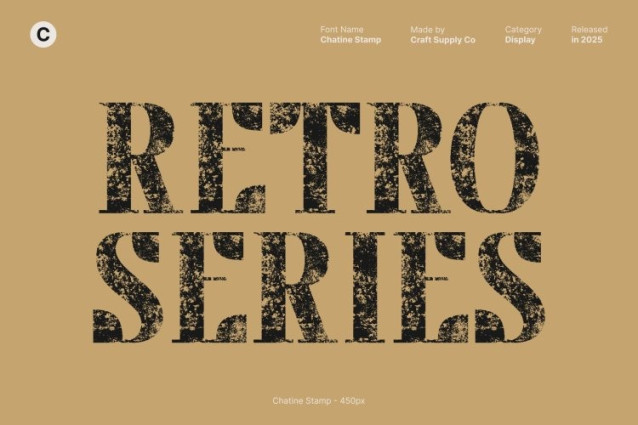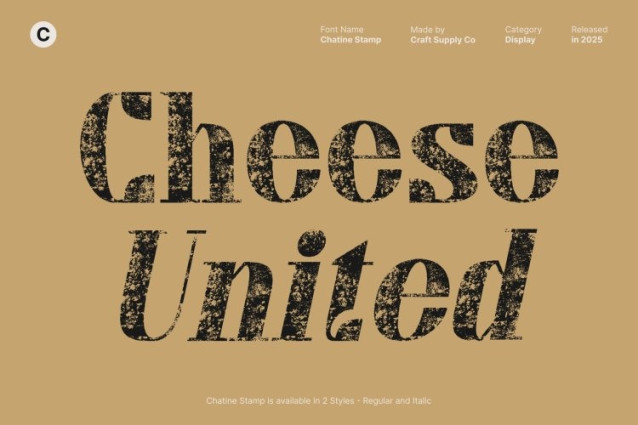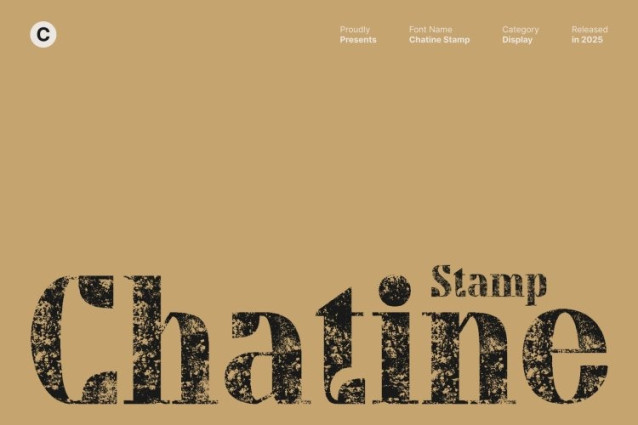
Chatine Stamp Font
Chatine Stamp Font This is a classic serif display font designed to combine boldness with approachability. Its well-proportioned letterforms and strong serif details create a typeface that feels both authoritative and welcoming. The timeless design ensures that works beautifully for projects seeking a sophisticated yet retro-inspired aesthetic.
Stamp Texture for Vintage Personality
Enhanced with a stamp texture, this font introduces subtle imperfections and tactile character to each letter. The stamped finish gives the typeface a retro, handcrafted feel, evoking nostalgic vibes and the charm of traditional print techniques. This texture adds depth and authenticity, making each design feel unique and visually compelling.
Classic Serif Details for Impactful Display
This font’s strong serifs and structured letterforms provide excellent readability while maintaining bold presence. Its classic yet dynamic shapes are perfect for making a statement in headlines, posters, logos, and other display-focused applications. The balance of boldness and elegance ensures versatility across creative projects.
Ideal for Logos, Posters, and Nostalgic Branding
Whether used for branding, editorial titles, vintage-inspired posters, or creative logos, brings a retro charm and handcrafted appeal to any design. The combination of classic serif sophistication and stamp texture ensures that your projects capture attention with bold, nostalgic personality while remaining stylish and professional.